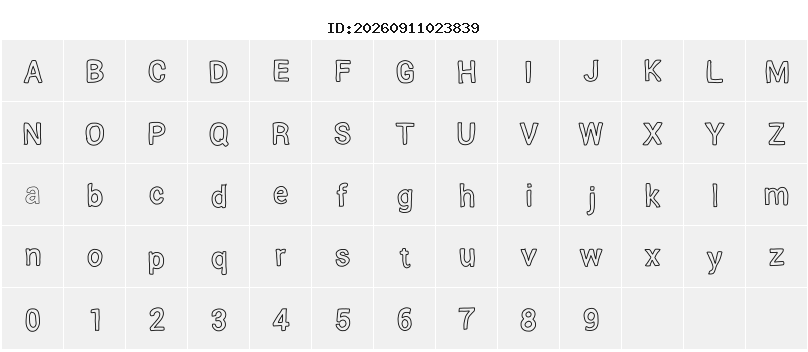
• Font Name: Verumai
• Font Style: Outline
About Verumai.ttf
Verumai.ttf is a modern, elegant sans-serif font designed for ultimate readability and visual harmony. Perfect for branding, headlines, web design, and print materials.